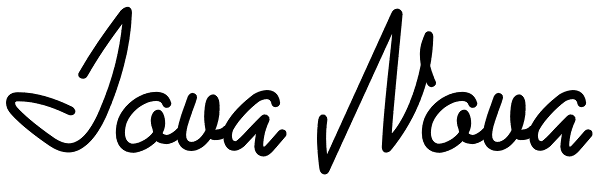
Iova Nova
Iova Nova is based on Jowa Script, designed by J. Wagner in 1967. The typeface has been redesigned, digitized, completed and expanded as OpenType Pro in the profonts studio. The redesign includes the modification of the numerals which originally had...